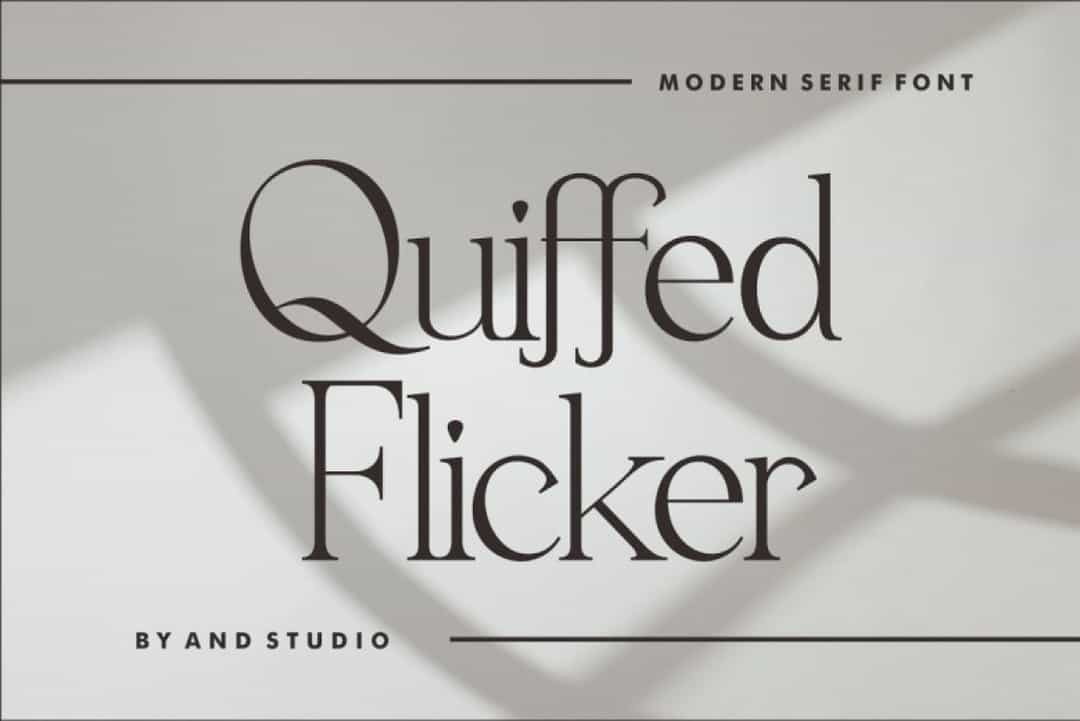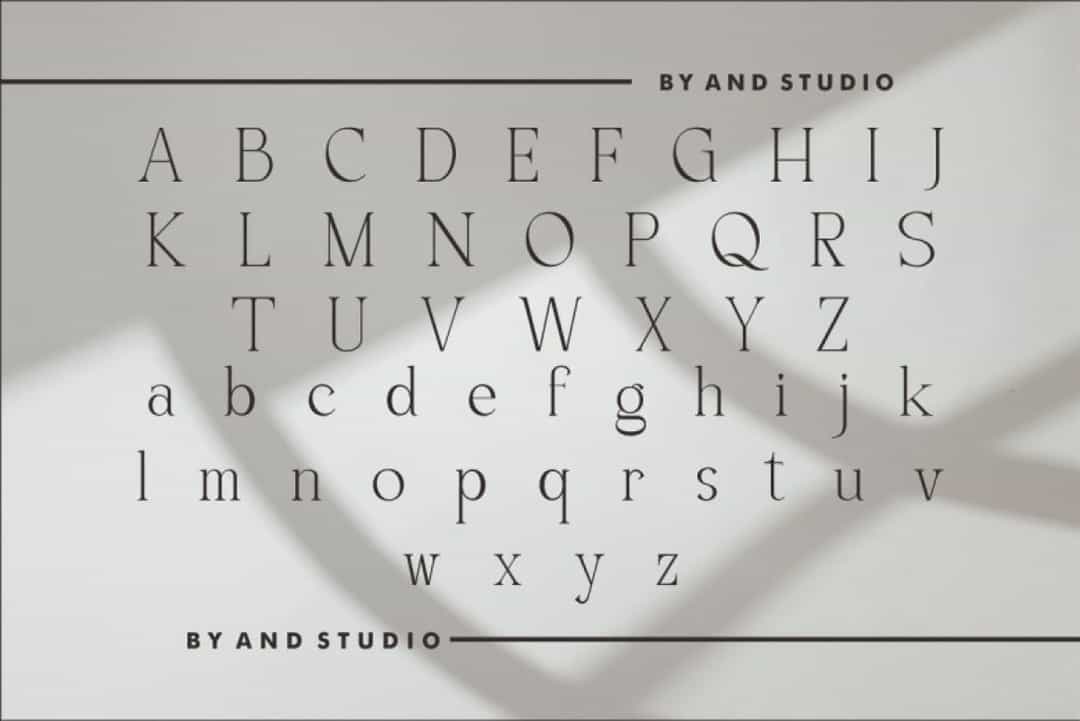
Quiffed Flicker is a premium serif typeface that blends classic elegance with contemporary styles. Careful attention has been paid to every detail and preciseness when designing this font, giving each design it graces an elegant and professional aesthetic. Clean lines and proportions offer high clarity and accessibility while each letter is meticulously crafted blending contemporary with subtle serifs, creating an equilibrium between modern and traditional aesthetics.